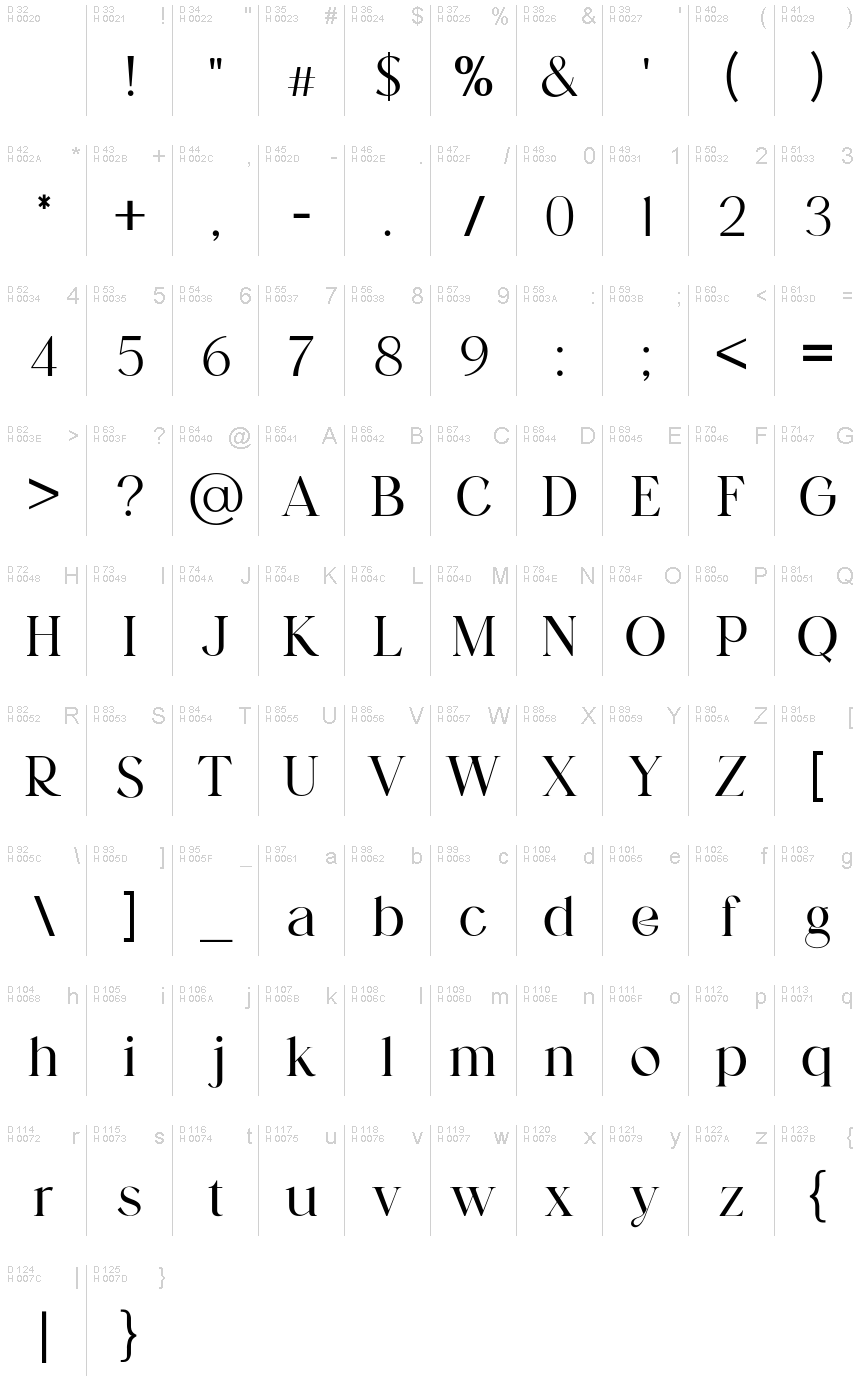
Dermagent
Dermagent, a captivating serif font crafted by UI Creative, exudes a timeless elegance with its refined, thoughtfully-balanced strokes. The font's intricate detailing and harmonious letter forms evoke a sense of sophistication, evoking emotive responses from the viewer. Its classic style seamlessly blends tradition with modern sensibilities, making it a versatile choice for a wide range of design applications.
Dermagent's versatility shines through its ability to seamlessly adapt to various design contexts. Its refined, dignified appearance lends itself well to editorial designs, corporate branding, and high-end visual identities. The font's impactful presence also makes it a compelling choice for headlines, titles, and other prominent typographic elements, ensuring a lasting impression on the reader.